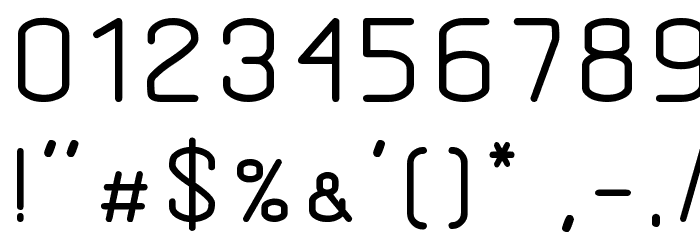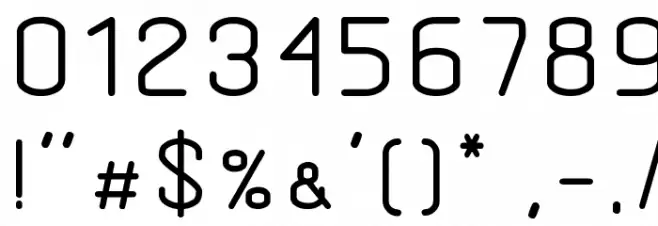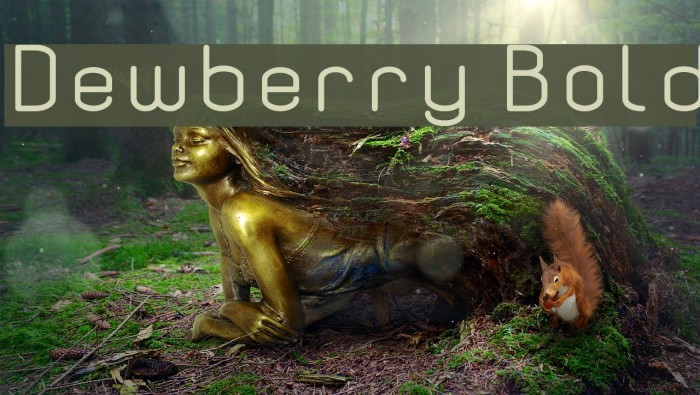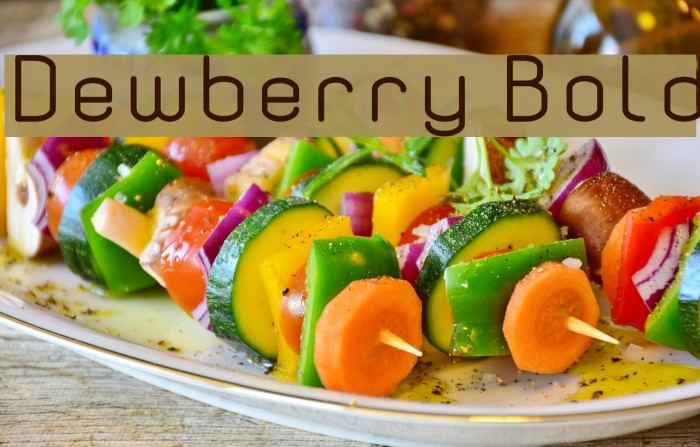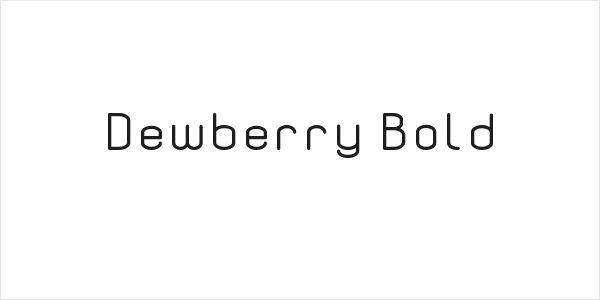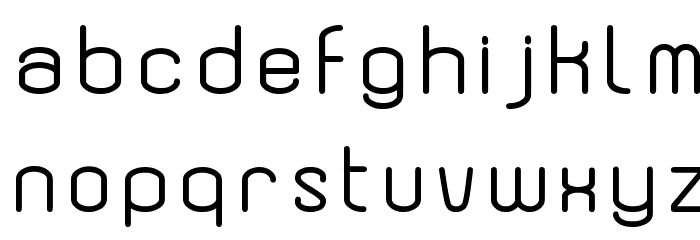
Dewberry Bold Font
Dewberry Bold Description
This font features a modern, geometric design with rounded edges, giving it a friendly and approachable appearance. The uniform stroke width across all characters contributes to a clean and cohesive look. The uppercase and lowercase letters are well-proportioned, maintaining a consistent height that enhances readability. The numerals are distinct and align well with the overall style, ensuring clarity in numerical data presentation. Special characters are thoughtfully designed, matching the font's overall aesthetic. This font's simplicity and clarity make it versatile for various applications.
| Use Case | Headlines, Logos, User Interfaces |
| Proposed Projects | Ideal for tech branding, user interfaces, signage, and educational materials. |